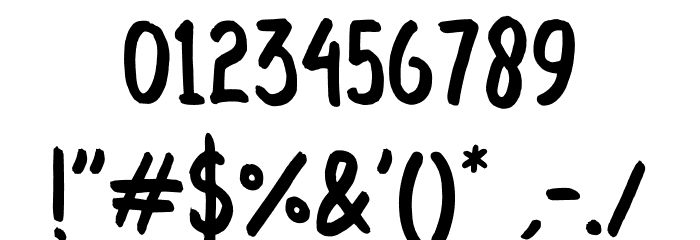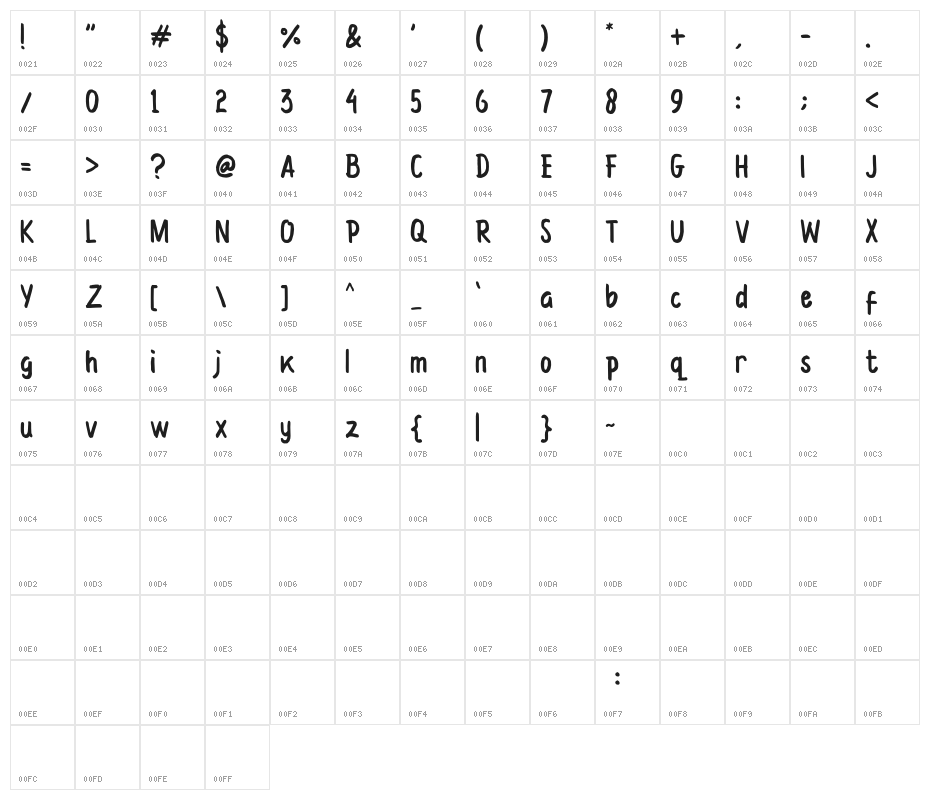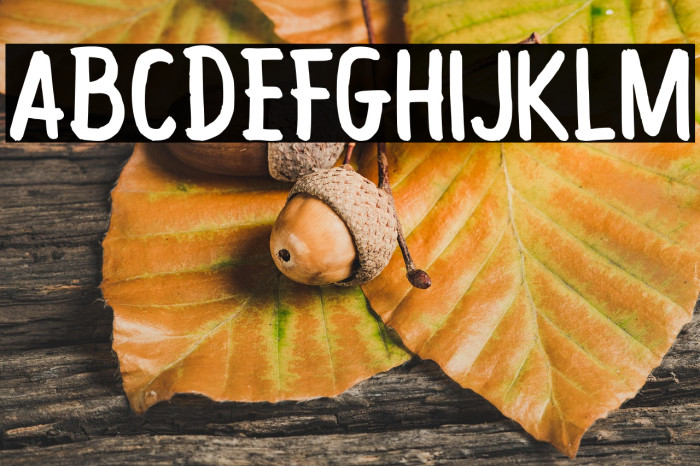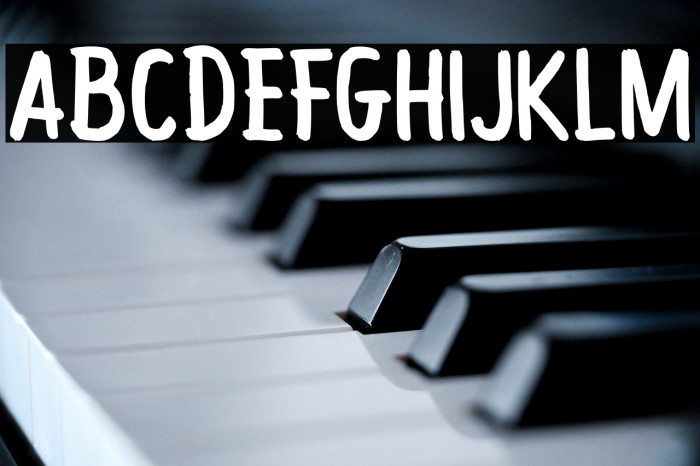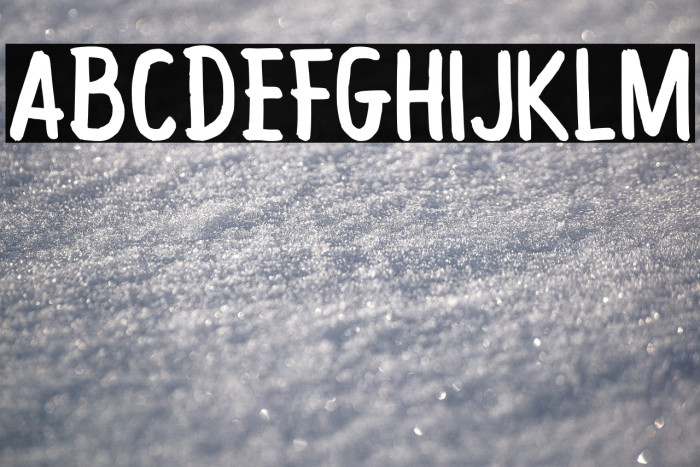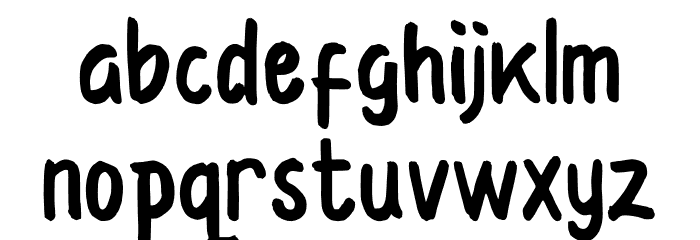
Daring School Font
Daring School Description
This font features a playful and informal style, reminiscent of handwritten text with a bold and slightly irregular stroke. The characters are rounded and have a casual, friendly appearance, making them suitable for projects that require a personal touch. The uppercase and lowercase letters maintain a consistent style, with a slight slant that adds to the dynamic feel of the font. The numbers and special characters are designed to match the overall aesthetic, ensuring a cohesive look across all text elements.